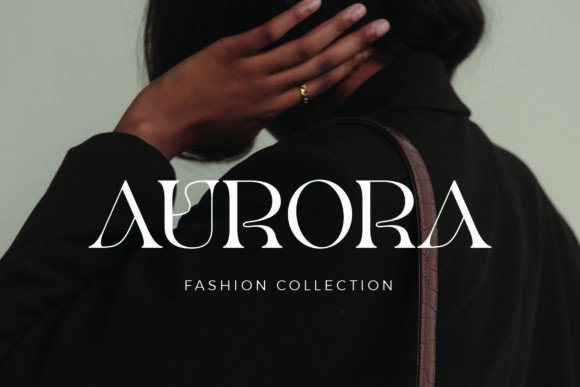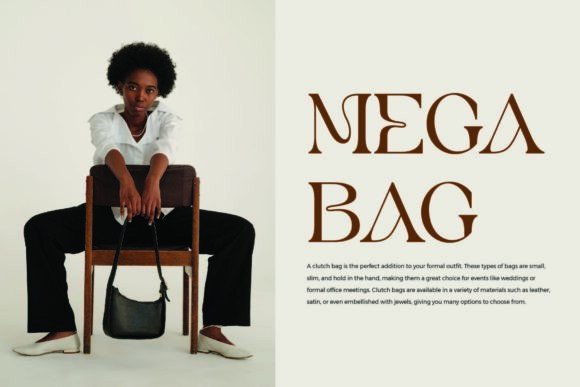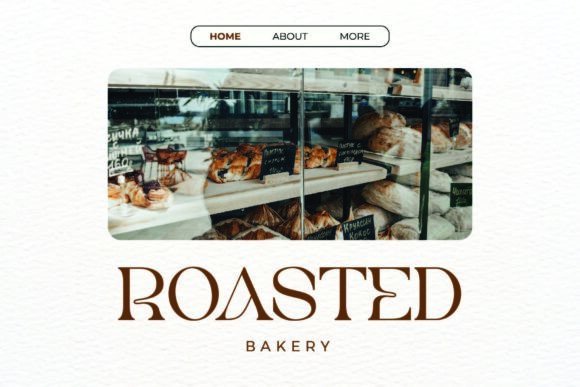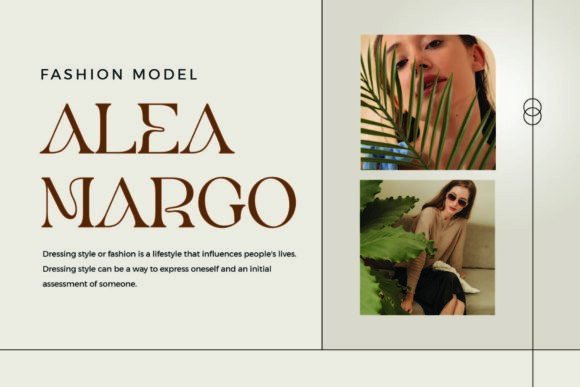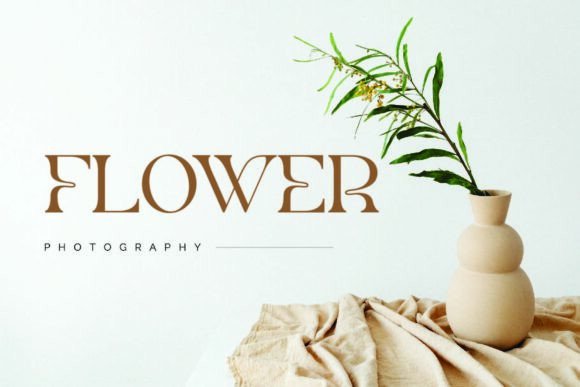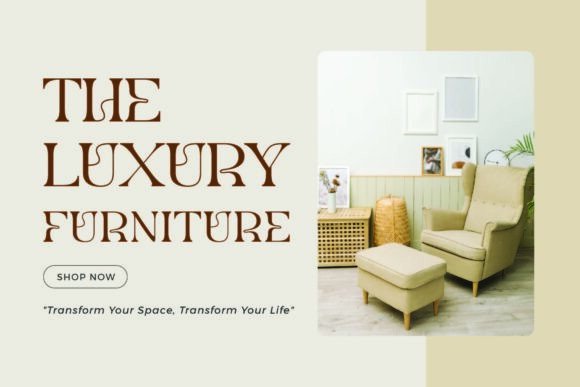
Introduction to Remon Font
As a designer, you’ve probably experienced that moment when a project just clicks into place. You’re brainstorming ideas, experimenting with different layouts, and suddenly, everything falls into perfect harmony. It’s that moment when you realize the power of the right design resource. For many creatives, finding the perfect font can be the key to unlocking their vision.
Enter Remon Font, a stylish ligature typeface that’s perfect for bringing your creative projects to life. Inspired by the famous minimalist logo, this versatile font is designed to elevate your designs and leave a lasting impression. Whether you’re working on templates, brochures, videos, or advertising branding, Remon Font is a valuable asset for any designer looking to add a touch of sophistication to their work.
Key Features of Remon Font
- High-quality design resource suitable for creative projects, offering a unique and modern look.
- Unique characteristics include its clean lines, geometric shapes, and elegant typography, making it perfect for modern design projects.
Honest Review: Remon Font
As a designer, I’m always on the lookout for high-quality design resources to elevate my creative projects. The Remon Font caught my eye with its modern and elegant feel. I was excited to dive in and see if it lived up to my expectations.
- ✨ Clean and minimalist design aesthetic that works perfectly for digital products and marketing materials.
- ✨ Includes a range of weights and styles to suit different design needs.
- ⚠️ Limited language support, which may be a concern for designers working on multilingual projects.
- ⚠️ Some of the glyphs may not be as detailed as I would have liked.
Overall, I’m impressed with the Remon Font’s clean design and versatility. While it may not be perfect, it’s a solid addition to any designer’s creative arsenal. Whether you’re working on a branding project or creating marketing materials, the Remon Font is definitely worth considering.
Remon Font is a versatile font that can be used in a variety of creative projects, such as:
- Social media graphics and advertising